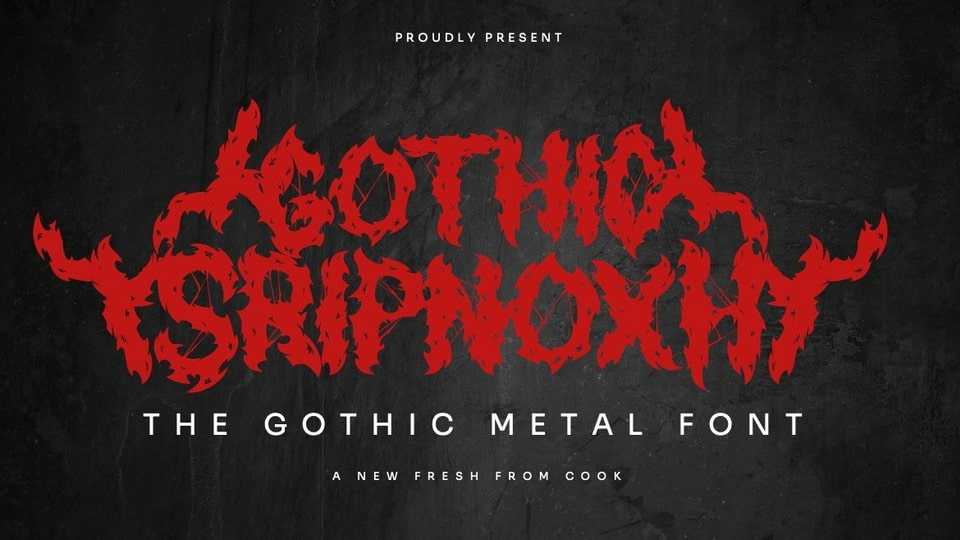
Download Sripnoxhz font, a gothic metal typeface that exudes dark elegance and raw power. With its spiked letterforms and intricate details, it captures the essence of gothic metal culture.